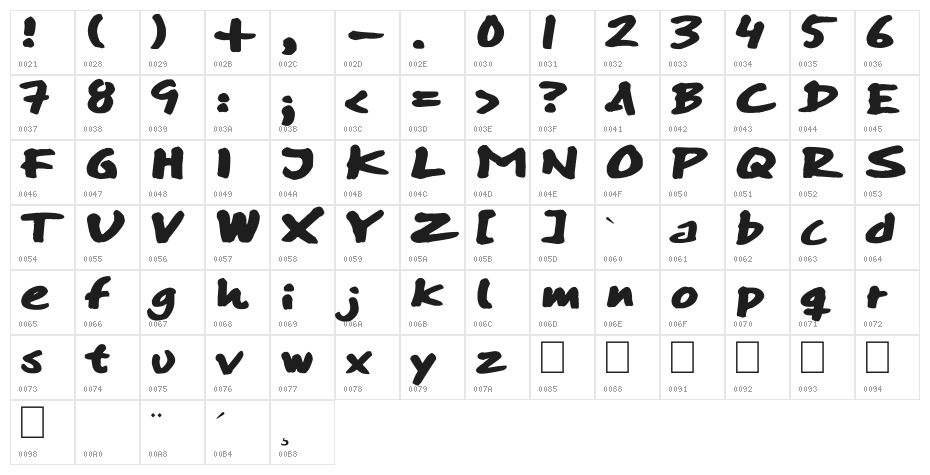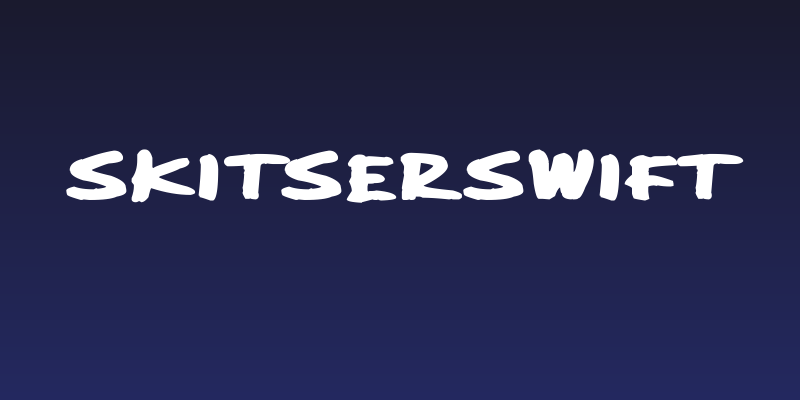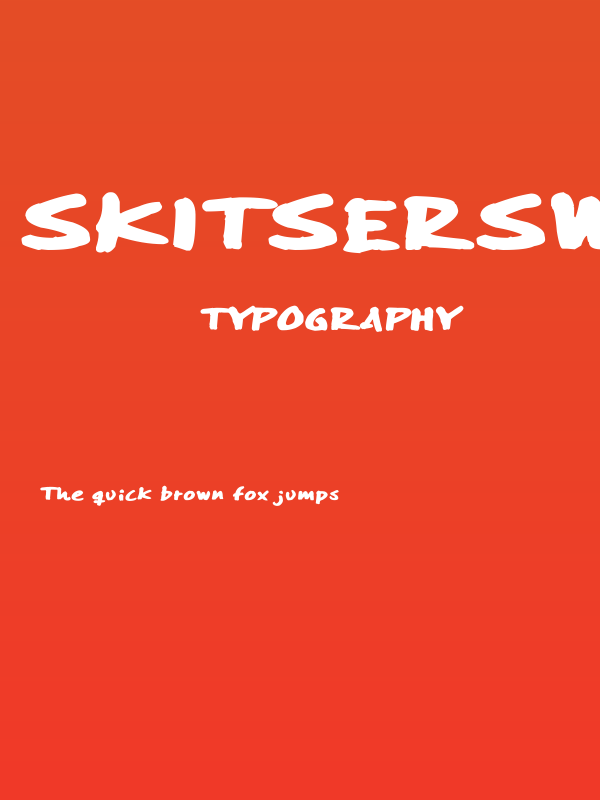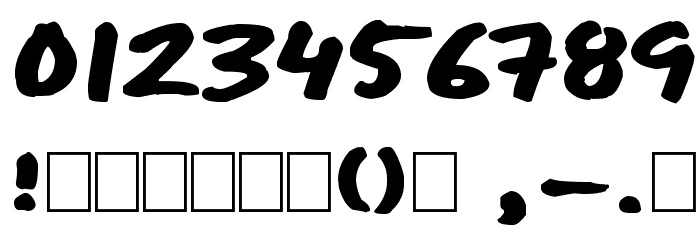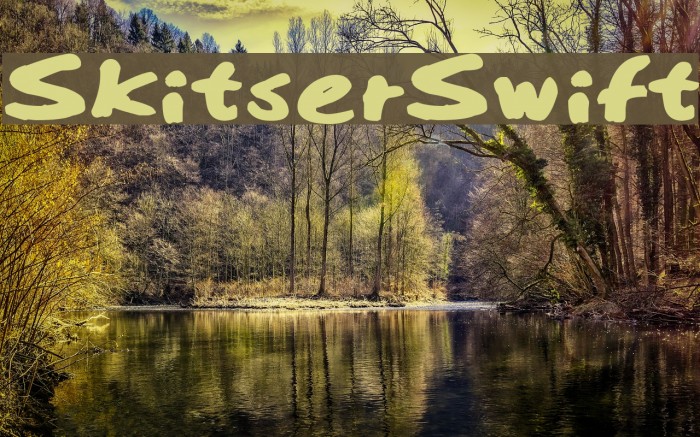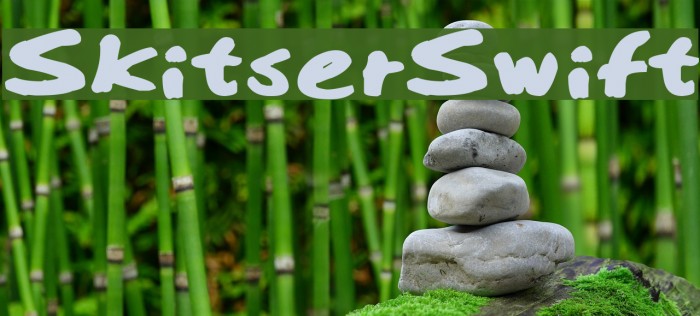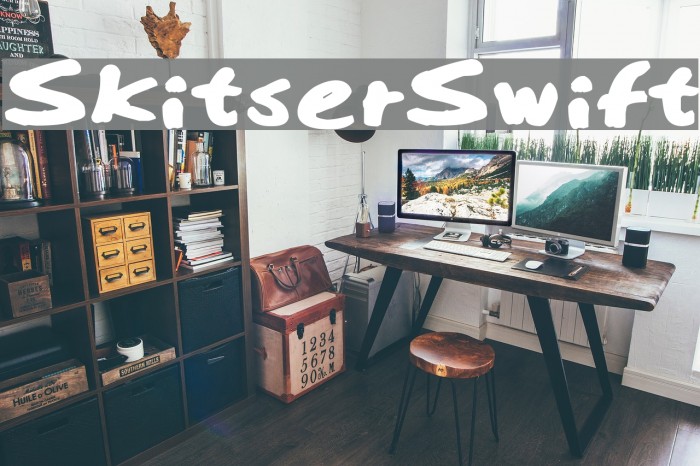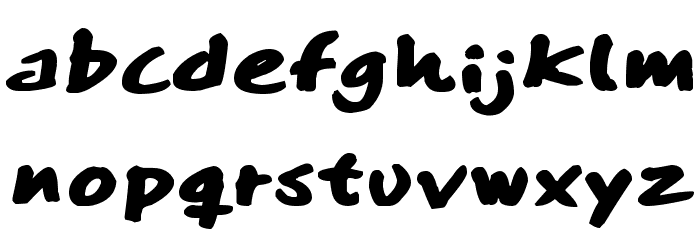
SkitserSwift Font
SkitserSwift Description
This font features a bold, handwritten style with a playful and dynamic appearance. The letters are slightly slanted, giving a sense of movement and energy. The strokes are thick and uneven, adding a casual and informal feel. The uppercase and lowercase letters maintain a consistent style, with rounded edges and a slightly irregular baseline. The numbers and special characters follow the same aesthetic, ensuring a cohesive look across all elements. This font is ideal for projects that require a personal touch or a creative flair.
| Proposed Projects | Ideal for greeting cards, posters, social media graphics, and branding that requires a personal touch. |